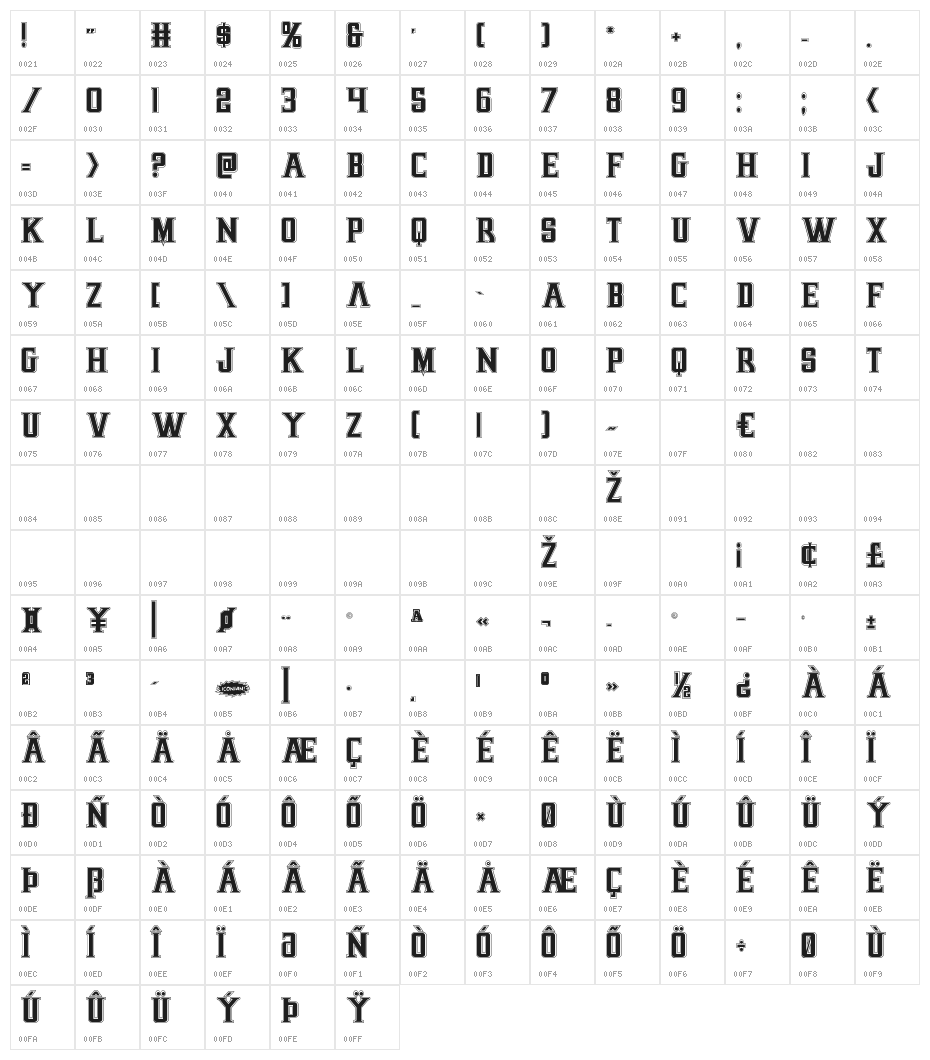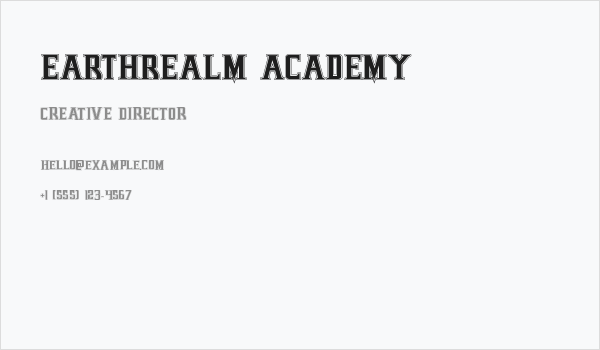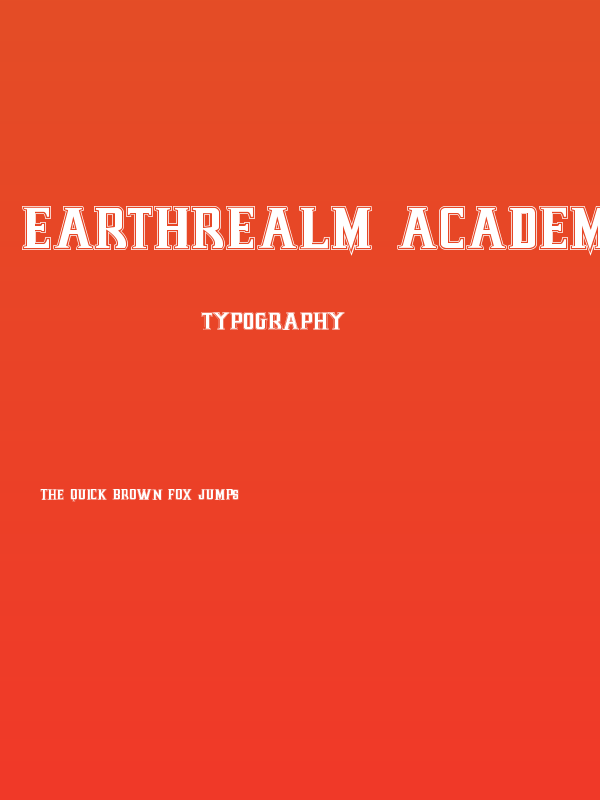
Earthrealm Academy Font
Earthrealm Academy Description
This font features bold, blocky characters with a strong presence, making it ideal for impactful designs. The letters are outlined with a thick border, adding a sense of depth and dimension. The style is reminiscent of collegiate or varsity typefaces, often used in sports or academic contexts. The uppercase letters are uniform in height, while the numbers and special characters maintain the same bold aesthetic. The overall design is clean and structured, with a slight vintage feel due to the outlined style.
| Proposed Projects | Ideal for sports team logos, school banners, event posters, and merchandise designs. |